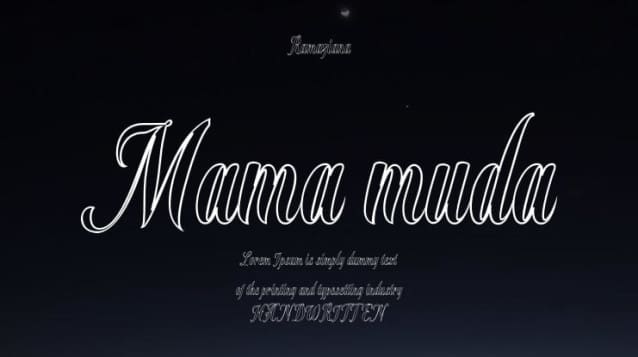
Mama Muda Font
Mama muda Font is a lovely and casual handwritten font with an incredibly friendly feel. Whether you’re looking for fonts for Instagram or calligraphy scripts for DIY projects, this font will turn any creative idea into a true piece of art!